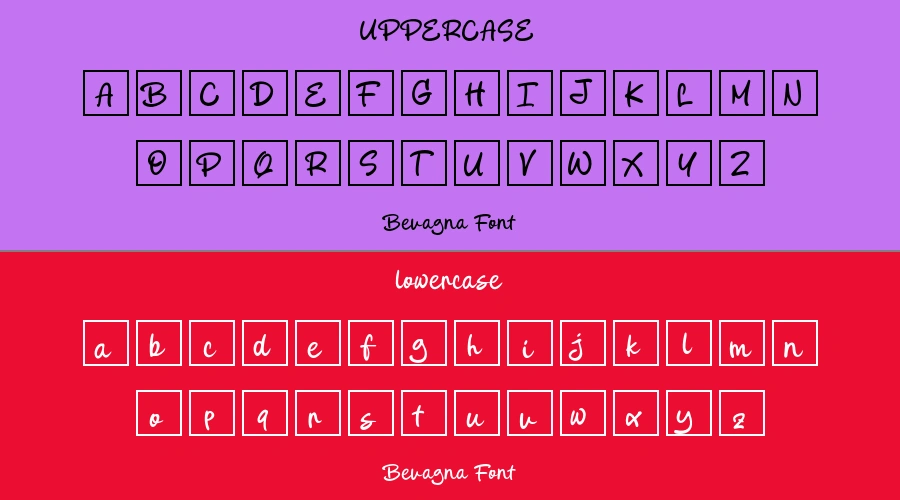
About Bevagna Font
Designed with precision, Bevagna Font merges engineered curves with visual comfort in every character. This versatility makes it particularly effective for digital interfaces, where distinctiveness and aesthetic excellence directly impact communication quality. Each letterform demonstrates meticulous craftsmanship.
Technical excellence shines through elements like transitional forms and ordinals, enhancing typographic versatility. In featured quotes settings, Bevagna Font proves its worth through superior special character access. The thoughtful execution of serif length and generational relevance ensures professional results.